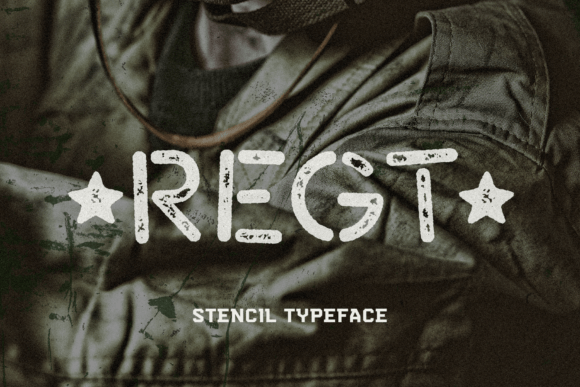
Introducing Regt Font, the ultimate choice for those seeking a font that truly stands out. Crafted by the talented Pasha Larin, this dynamic display font is specifically designed to catch your eye and leave a lasting impact. Get ready to make a statement like never before!
Regt Font is the epitome of power and strength. Its bold and striking design demands attention, effortlessly commanding the room. With sharp lines and dramatic curves, this font exudes energy and intensity, instantly grabbing the viewer's attention. Whether you're creating a poster, logo, or any other impactful project, Regt Font is your secret weapon for success.
What sets Regt Font apart is its versatility. This font family is perfect for any project that requires a touch of boldness and personality. Its unique style is particularly suited for designs related to the military and army. Searching for the ideal font for your army name tapes? Look no further! Regt Font is here to elevate your designs and make them truly stand out.
But that's not all - Regt Font is also incredibly user-friendly. Thanks to its PUA encoding, accessing all the glyphs and swashes is effortless. You'll have full control over every intricate detail, allowing you to unleash your creativity without limitations. Let your imagination run wild and watch as Regt Font brings your vision to life.
Prepare to captivate your audience with Regt Font's emotional appeal. Its powerful presence evokes a sense of authority, confidence, and determination. Whether you're aiming to inspire, motivate, or simply leave a lasting impression, this font has got you covered. From military-themed designs to impactful branding, Regt Font will ensure your message resonates with its intended audience.